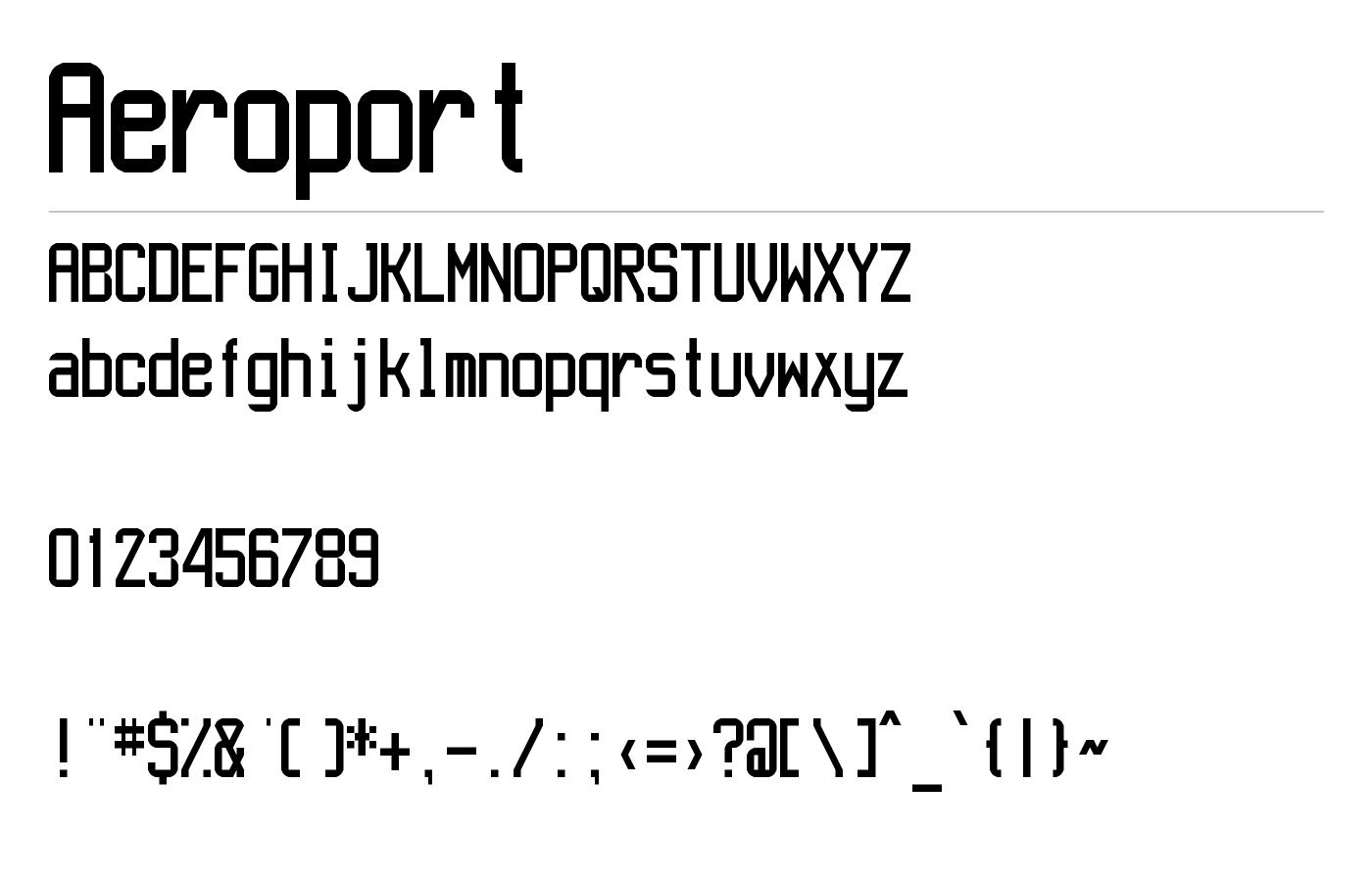
Aeroport is a narrow, modern sans-serif font characterized by its geometric and clean structure with a slightly technical feel. Its consistent stroke weight and squared, condensed letterforms give it a contemporary, industrial vibe, making it ideal for branding, signage, and editorial designs that seek a sleek, futuristic touch. This font works best in headlines and logos where a distinctive, modern impression is needed.
Aeroport Font
About Aeroport Font
| Font family | Aeroport Font |
| Designer | Jeffrey Visser |